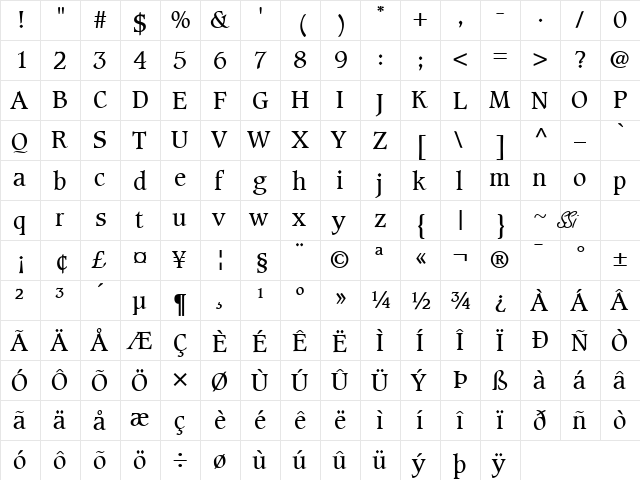
Grammateus SSi Regular
Design Context for Grammateus SSi Typeface
Grammateus SSi takes a measured approach to typography — its balanced proportions and neutral character make it a reliable workhorse for both digital and print work.